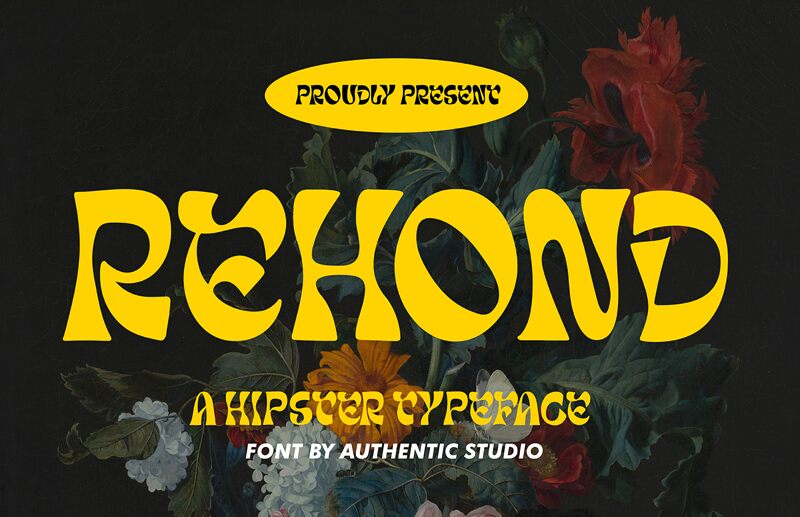
Rehond font by Faras Dina is a free font characteristic for its groovy style and dynamic presence. The retro-inspired typeface features decorative, whimsical shapes with bold curves to instantly elevate the look of your letters. This font is a modern twist on classic elements with an artistic flair and expressive appearance. It suits mostly creative projects but also any undertaking that can benefit from its psychedelic appearance.
Projects where you can hire this type include branding, advertising, packaging, signage, book covers, art, magazines, headlines, printed quotes, invitations, and social media.